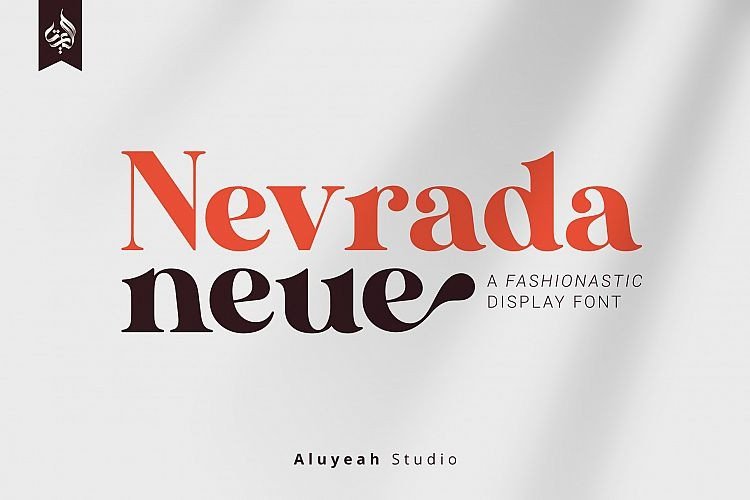
AL Nevrada Neue Display Font
Nevrada Neue is a fashiontastic display font. This font was carefully crafted from bestseller font Nevrada and inspired by one of leading fashion brand in the world. In general, it creates a luxurious and elegant look in design.
Coming to you with 90+ luxury alternate to create a perfectly beautiful, classy, chic, elegant, glamorous and luxurious design.
Use this font for your fashion brand, resort, cosmetics, invitations, wedding, branding, packaging, magazines, boutique, social media, restaurant, spa, greeting cards, headers, headline and many more.